Find out which fonts and sizes make eBooks easy to read on any device—and how to edit your PDF for a smooth, professional reading experience.
The font you choose for your eBook can make a big difference in how easily your audience reads your content. A well-designed typeface enhances readability, reduces eye strain, and keeps readers engaged.
This guide breaks down how you can choose the best font for eBook readability and how to edit your PDF eBook for a polished, professional look.
5 Best Fonts for eBook Readability
Choosing the right font for an eBook is crucial to creating a comfortable reading experience. The best fonts are highly legible, easy on the eyes during long reading sessions, and render well across different devices and screen sizes.
Here are some of the best fonts for eBook readability:
1. Georgia
Designed for screen reading, Georgia is a classic serif font that balances elegance with clarity. Its large height and ample spacing make it especially readable on smaller screens.
Georgia is often used in eBooks and on blogs because it maintains strong legibility even at small font sizes.
2. Palatino
Palatino is another serif font known for excellent readability. Originally designed for print, it is widely used in digital formats due to its open counters and classic letterforms.
3. Arial
Arial is a clean, sans-serif font that’s easy to read and supported by virtually every platform. While often used in technical or business documents, it’s also a solid choice for eBooks when you need a modern look.
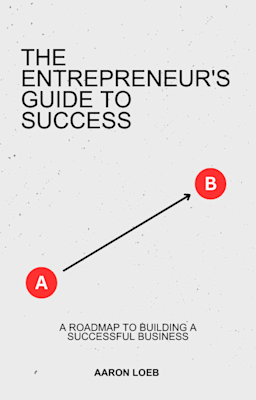
4. Verdana
Verdana was specifically designed for screen display. Its wide letter spacing and large characters enhance readability on all types of screens, including low-resolution displays.
5. Brookerly
This font was developed by Amazon to improve the reading experience on Kindle devices. It combines a serif style with the modern smoothness of digital typography.
Additionally, it’s purpose-built for digital reading, reduces eye strain on backlit screens, and is stylish yet highly functional.
The Best Font Size for PDF eBook Reading
When designing a PDF eBook, choosing the right font size is just as important as selecting a readable font. A poorly sized font can strain the eyes, discourage readers from finishing your content, and create formatting issues.
For most PDF eBooks, the ideal font size for body text is between 11 and 13 points. This range offers a comfortable reading experience without requiring zooming or scrolling.
Additionally, to create a clear visual hierarchy for headings and subheadings, pair your body text with headings in larger sizes, such as 18 to 24 points for main headings and 14 to 18 points for subheadings.
FAQs on the Best Font for eBook PDFs
What font is best for an eBook?
The best font for an eBook is one that’s highly readable across devices, such as Georgia, Palatino, or Brookerly. Serif fonts like these provide a comfortable reading experience for long-form text. For a modern look, clean sans-serif fonts like Arial or Roboto also work well.
Which font style is best for reading?
The best font style for reading is typically a serif font like Georgia or Palatino, as the small strokes help guide the eyes across lines of text. For digital screens, fonts designed specifically for readability, like Brookerly or Verdana, are good choices.
What is the best font for digital publishing?
What font do books use?
Most printed books use serif fonts like Garamond, Times New Roman, or Caslon, as these are highly readable and have a classic, professional look. These fonts help guide the reader’s eye smoothly across the page, making them ideal for long-form text.